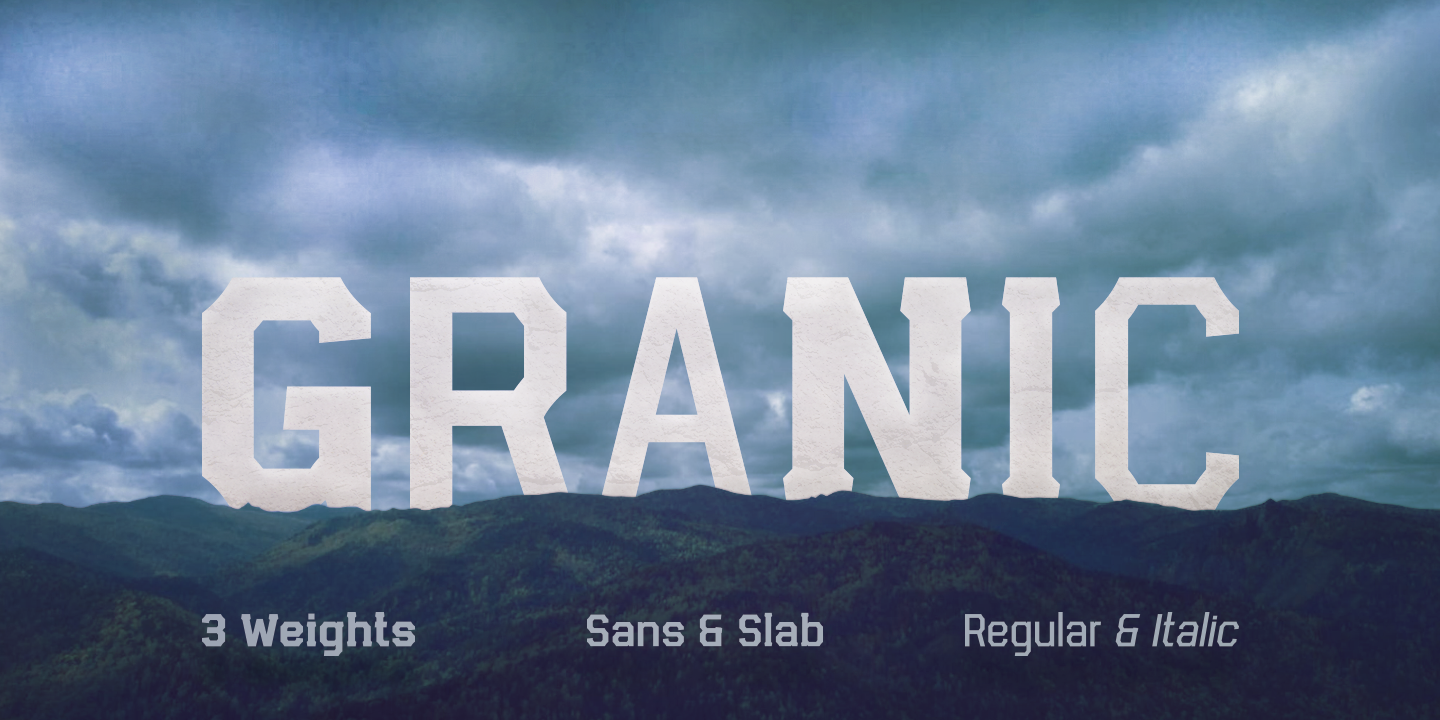
Granic Font Free Download is a bold and modern sans-serif typeface designed for impactful headlines, branding, posters, and digital media. Its strong geometric shapes and clean lines make it ideal for projects that demand attention and clarity.
What makes Granic Font so exciting is its blend of minimalism and strength. It delivers a confident presence while maintaining excellent readability across various platforms and sizes.
The Granic Font family includes multiple weights such as Regular, Medium, Bold, and Black, providing designers with versatility to create dynamic typographic hierarchies.
Whether you're designing striking marketing materials or modern website headers, Granic Font Free Download offers a professional and contemporary look. You can download it for free to test, but commercial use requires a license. Empower your designs with Granic’s bold style.